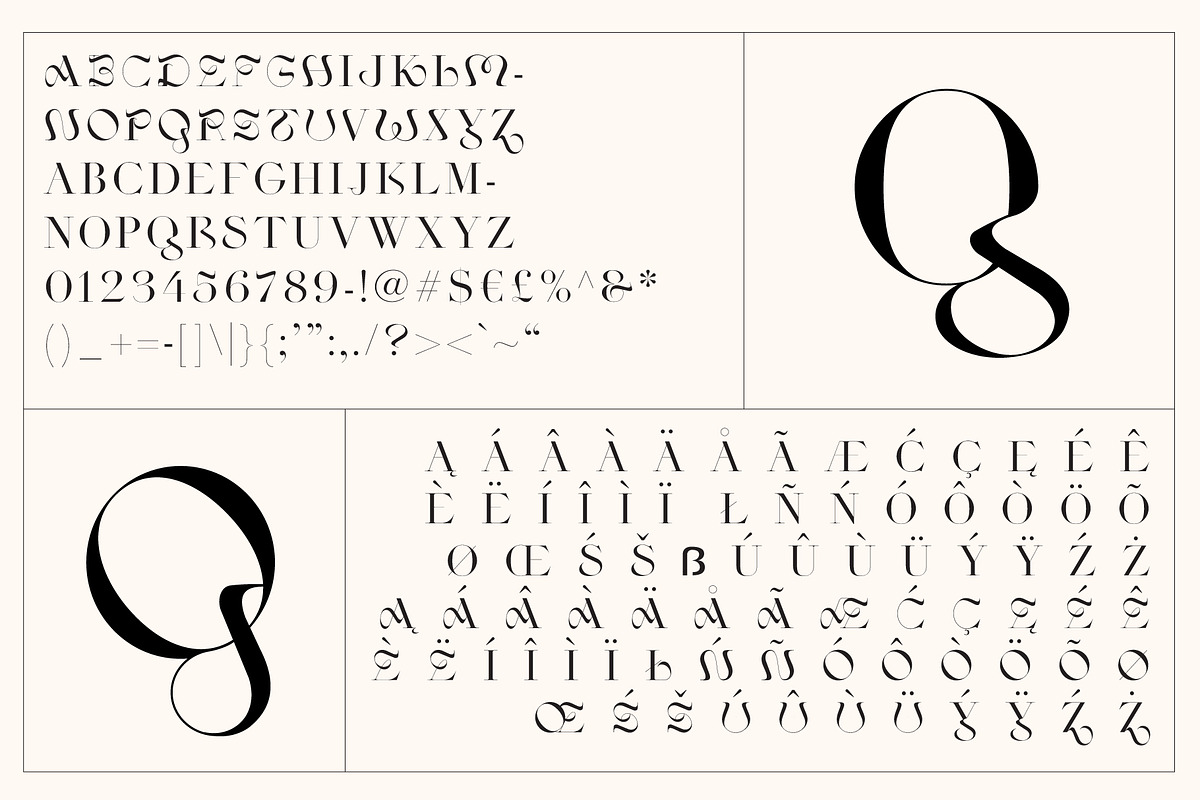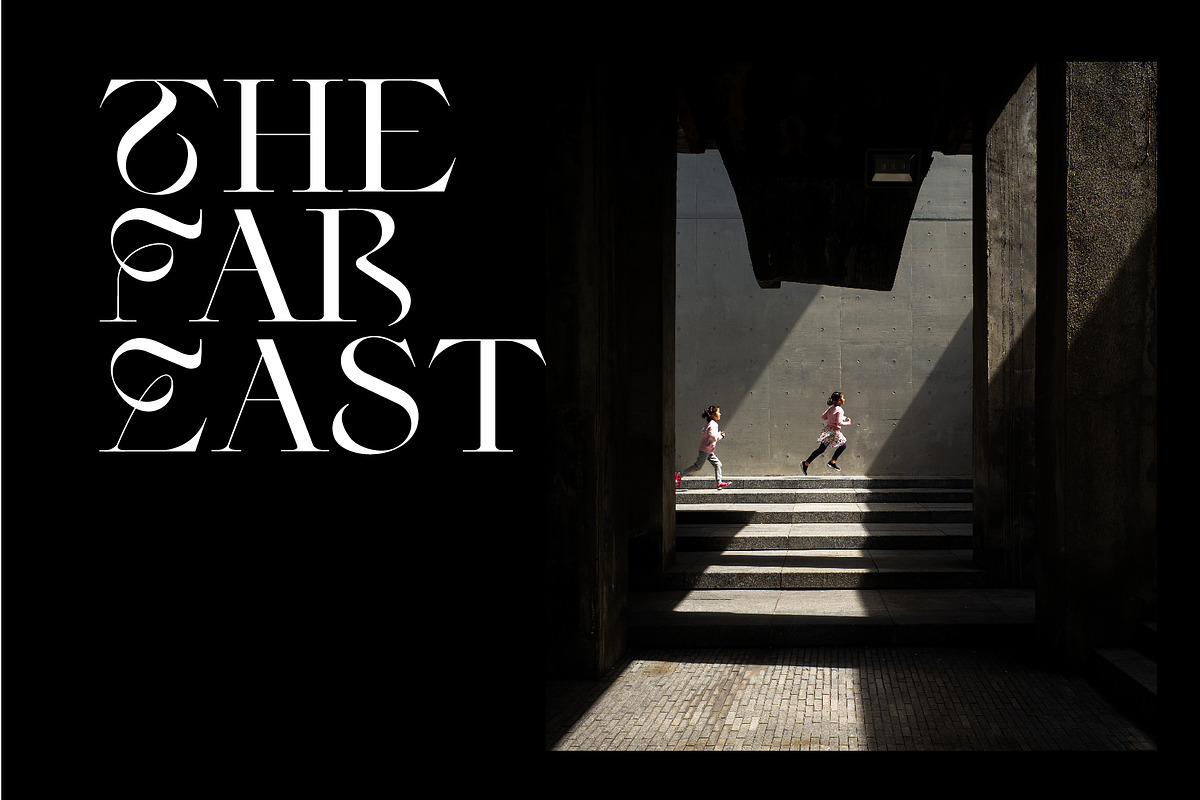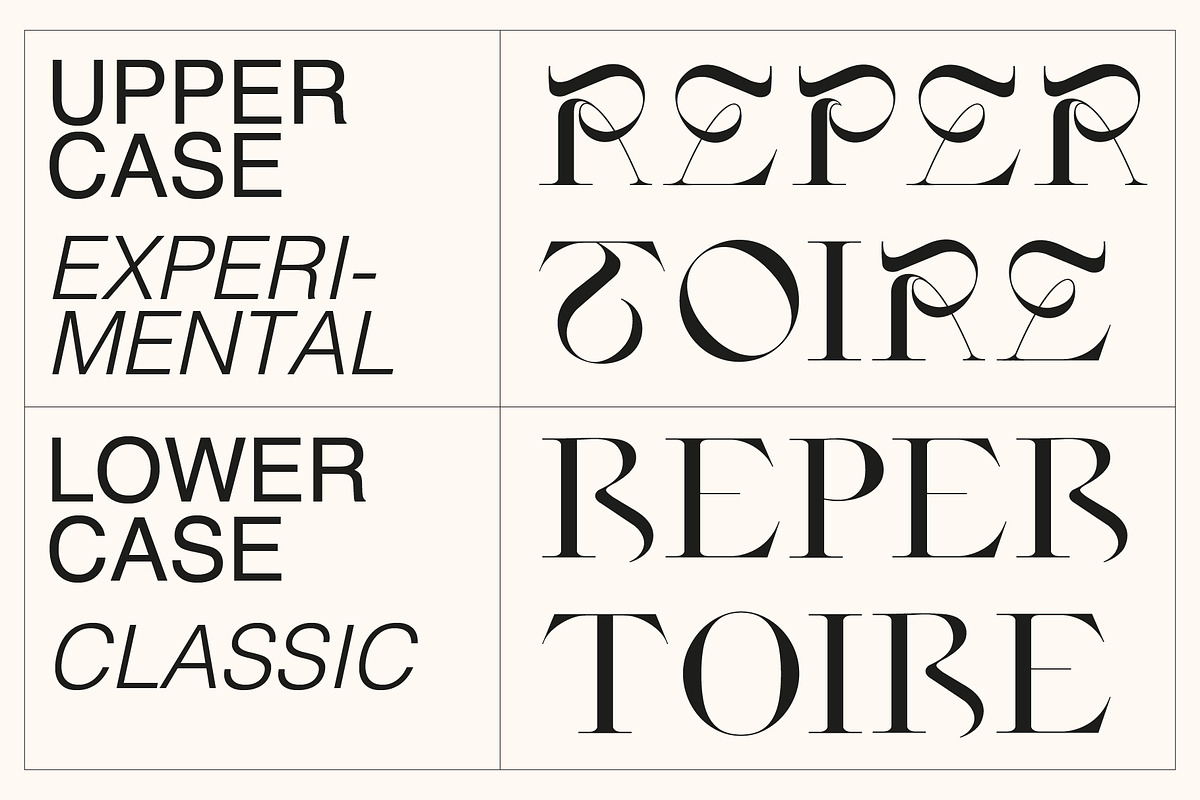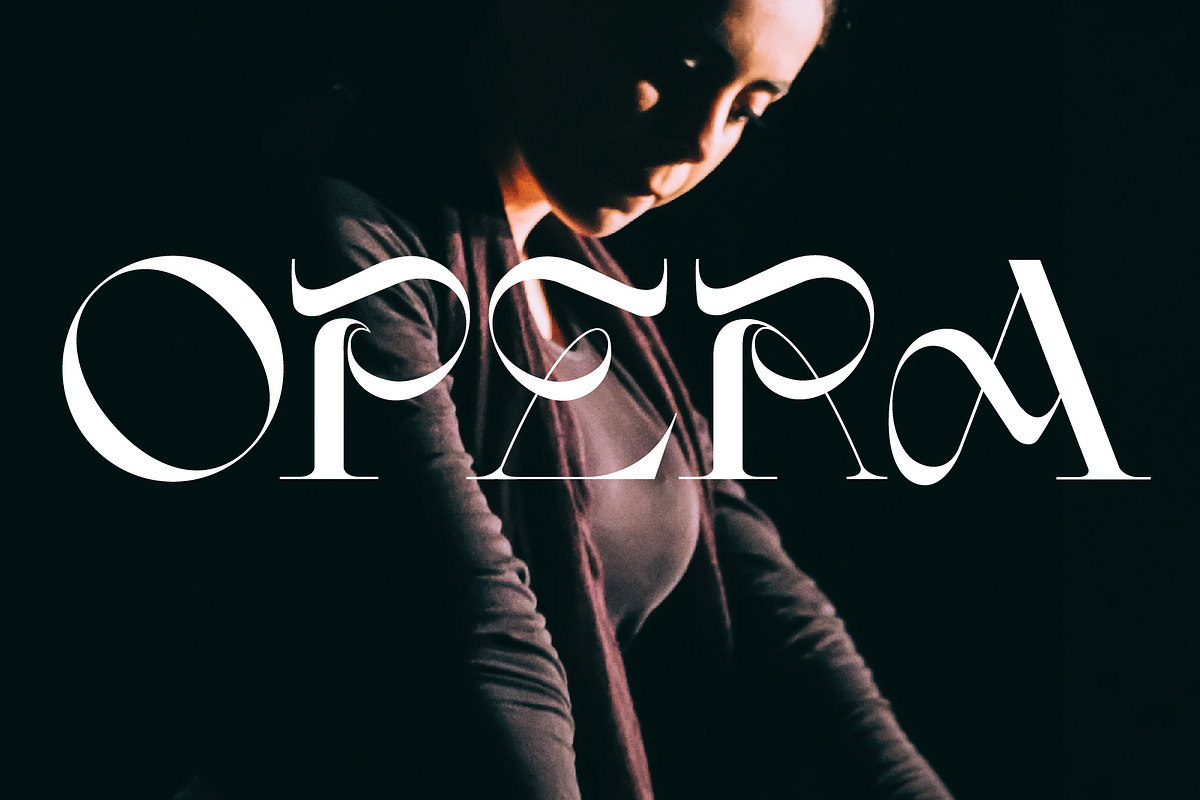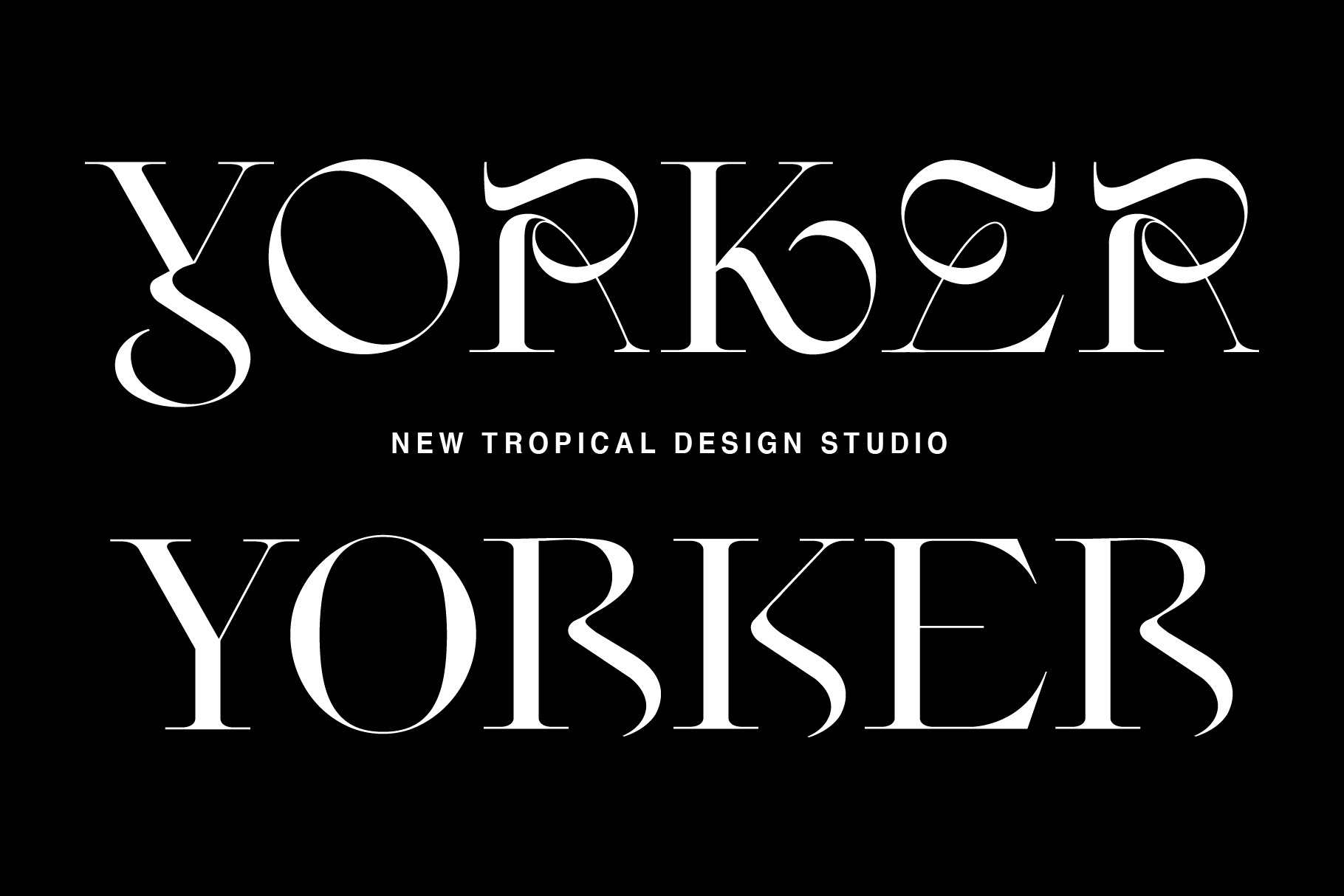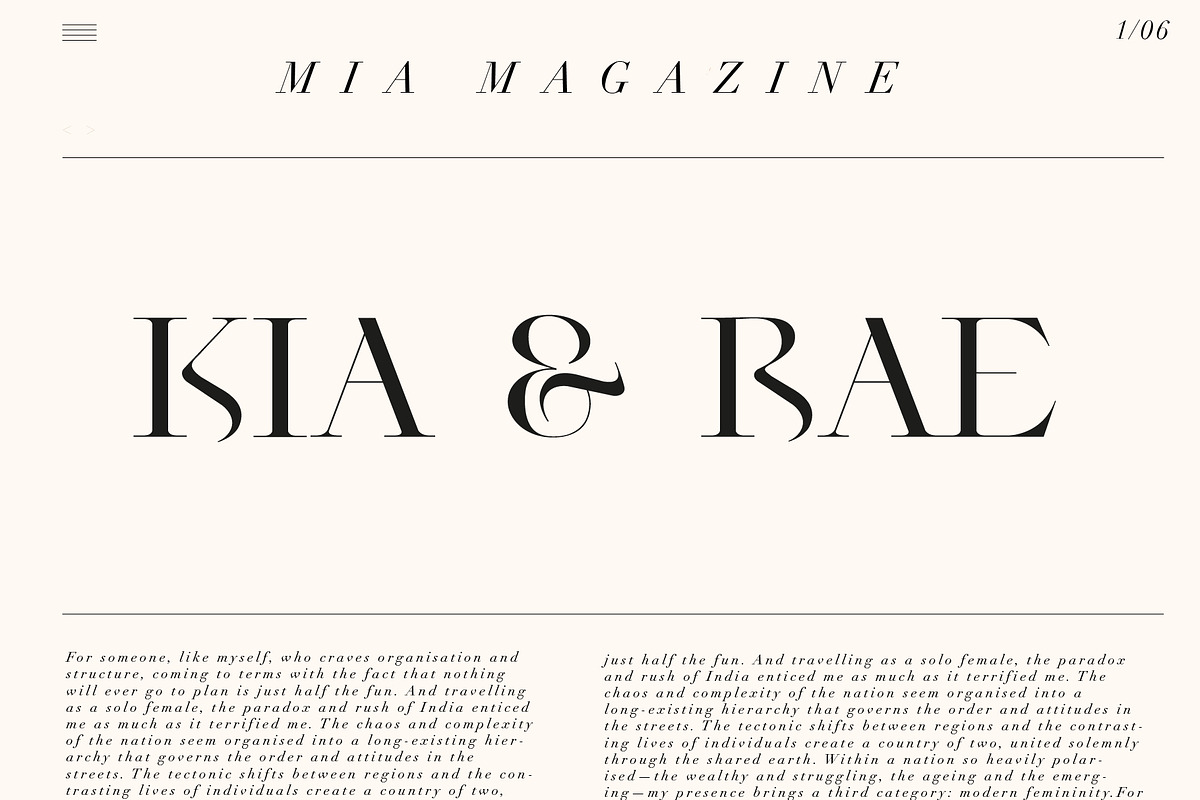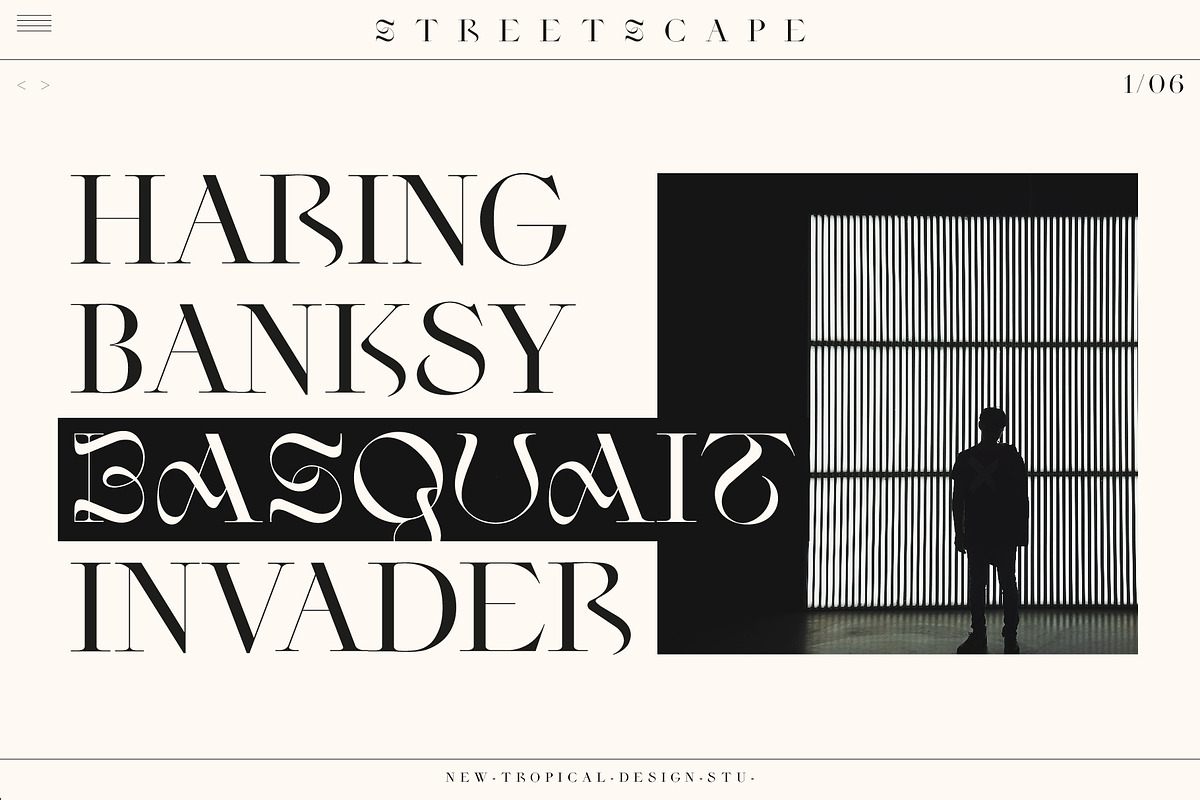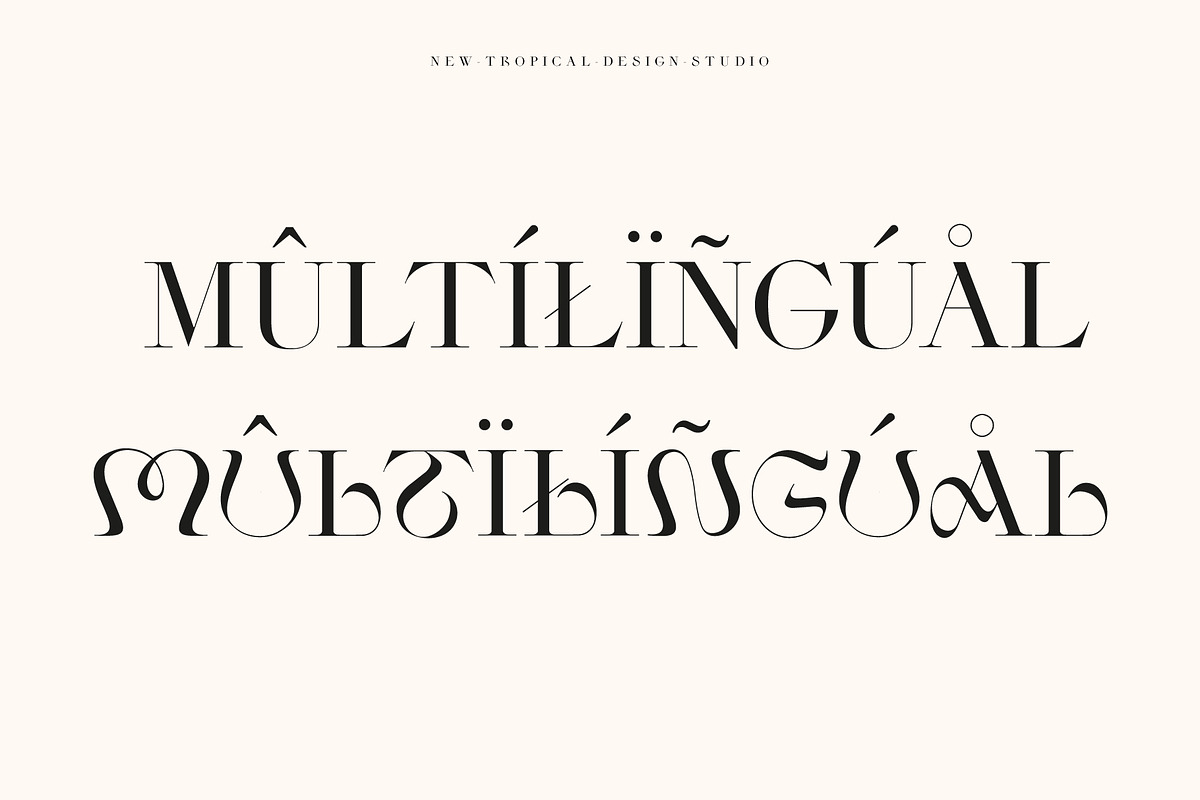
Yorker - Experimental Serif Typeface
Yorker typeface is a unique serif/display typeface combo. A modern ornate caps case mixes with a classic fashion lowercase to make a highly memorable pair. Perfect for that modern classy vibe.
- Full upper/lowercase, numbers, punctuation
- Multilingual support ( including polish ) see second last slide for all characters